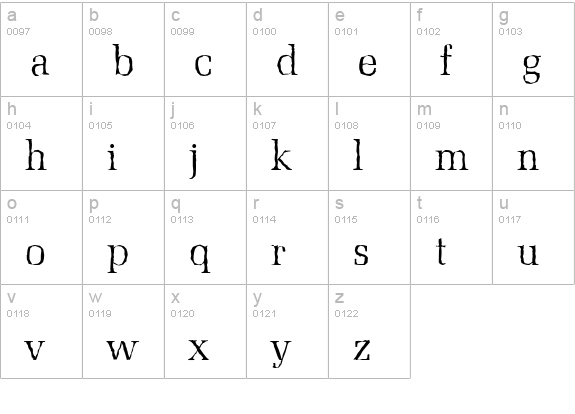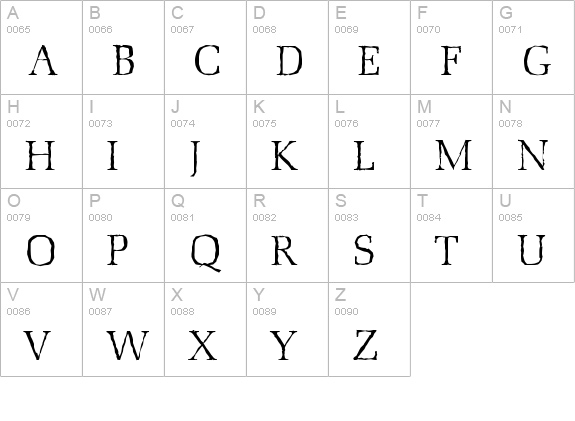
MarseilleAntique-Light-Regular Font Details
MarseilleAntique-Light-Regular is a refined, elegant variant in the MarseilleAntique typeface family \xE2\x80\x94 well suited to elegant body text, refined sub-headings, and luxury branding.
MarseilleAntique-Light-Regular is a timeless and elegant font that exudes sophistication and charm. Its delicate serifs and graceful curves make it perfect for adding a touch of class to any design project. With its classic and vintage-inspired look, MarseilleAntique-Light-Regular is ideal for creating stunning logos, invitations, and branding materials. This versatile font is free to download at FontsMarket.com, making it accessible to designers and creatives looking to elevate their work with a touch of old-world charm. Whether you're working on a vintage-inspired project or simply want to add a touch of elegance to your designs, MarseilleAntique-Light-Regular is the perfect choice. Download it today and add a touch of timeless beauty to your next design project.